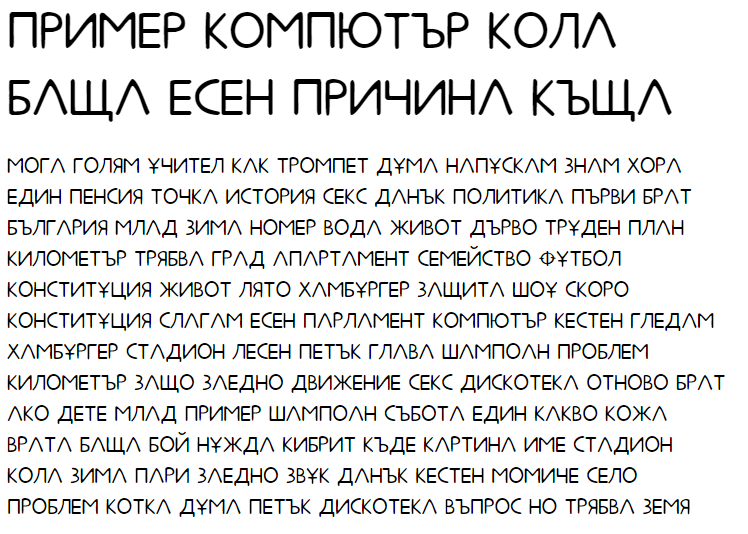
Metrolox is most popular/used font in the State of Greek. Project name of this font is Metrolox. Personaly feel free to use Metrolox but when you use this font commercially please contsct- � Karen Clemens & Apostrophic Laboratories. All rights reserved. apostrofe@mail.com. Loosley based on a few letters seen in the Enemy of the State movie titling..
✓ � Karen Clemens & Apostrophic Laboratories. All rights reserved. Email  for more information. Loosely based on a few letters seen in the Enemy of the State movie titling. The unicode release of this font contains 568 glyphs and offers support for more than 30 latin-based languages as well as a long list of code pages. Consult the font's documentation for technical details.
Metrolox Cyrillic Font